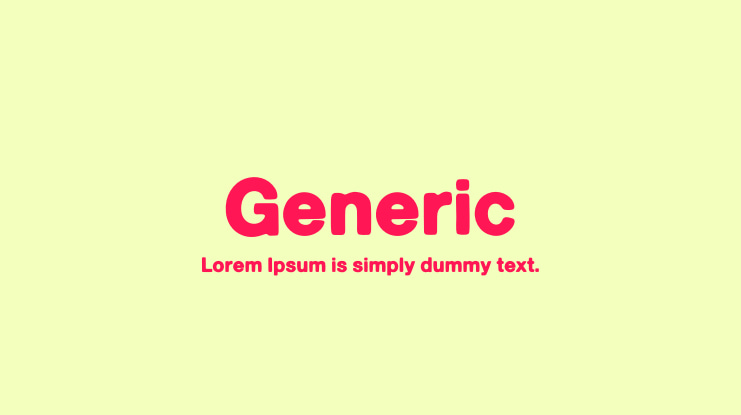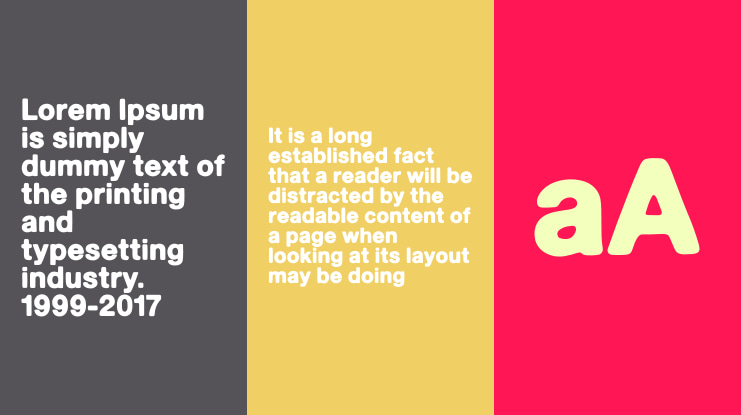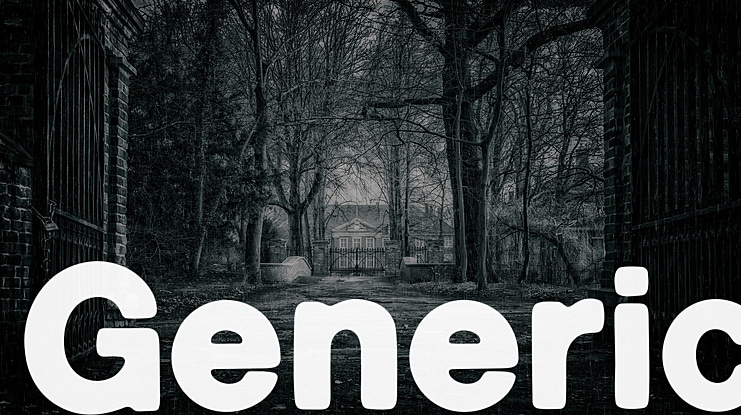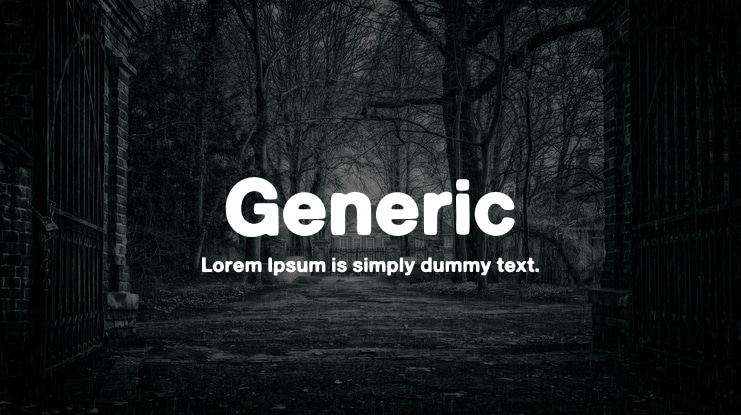
Generic Font Family
This font designed by More Etc is a classic display typeface inspired by the craftsmanship of graphic design, typesetting, and printing in the analogue era – before Adobe, Macintosh computers and desktop publishing – when dinosaurs ruled the earth.
With the use of various typesetting apparatuses or dry transfer type, photo copiers, and shooting layouts and paste-ups to film, the printed results was not as exact, precise and predictable as it is today.
When examining old prints, it is difficult not to like the way that characters in over- or underexposed film have a special type of vibe to them that is often sadly lost in today’s pursuit of total perfection.